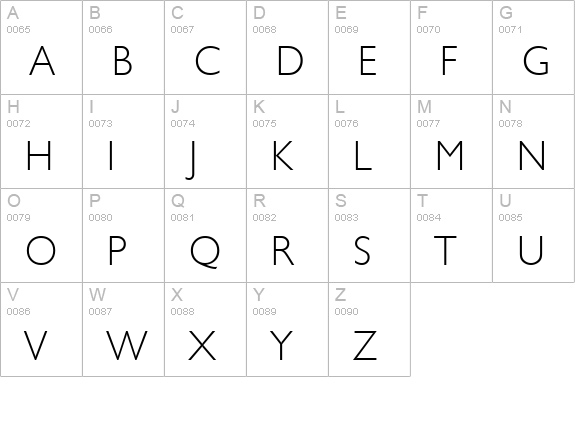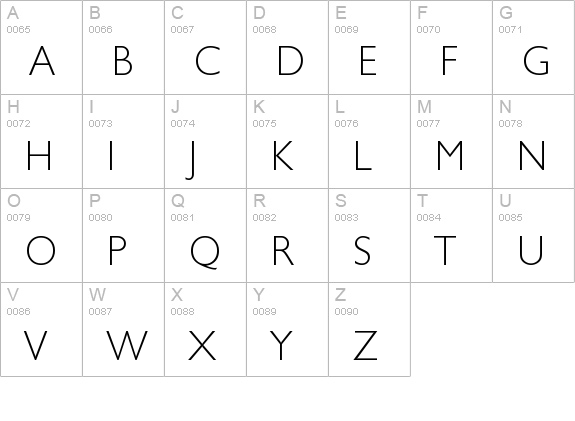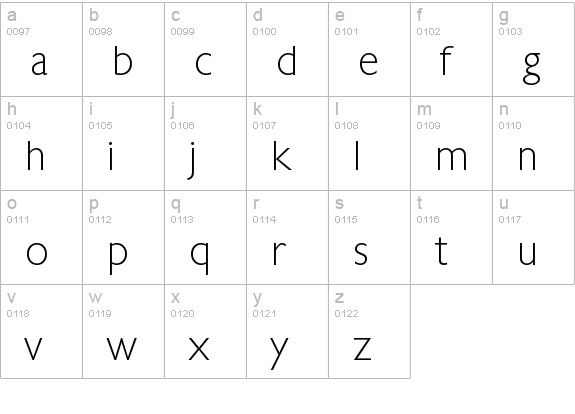
ChantillySerial-Xlight-Regular is the standard, neutral variant in the ChantillySerial typeface family \xE2\x80\x94 well suited to general body text, paragraphs, and standard typographic work.
ChantillySerial-Xlight-Regular is a delicate and elegant font that exudes sophistication and charm. With its clean lines and subtle curves, this font is perfect for adding a touch of class to any design project. Whether you're creating wedding invitations, branding materials, or social media graphics, ChantillySerial-Xlight-Regular will elevate your work to the next level. The best part? ChantillySerial-Xlight-Regular is completely free to download at FontsMarket.com. This means you can access this beautiful font without breaking the bank. So why wait? Download ChantillySerial-Xlight-Regular today and add a touch of timeless beauty to your designs.